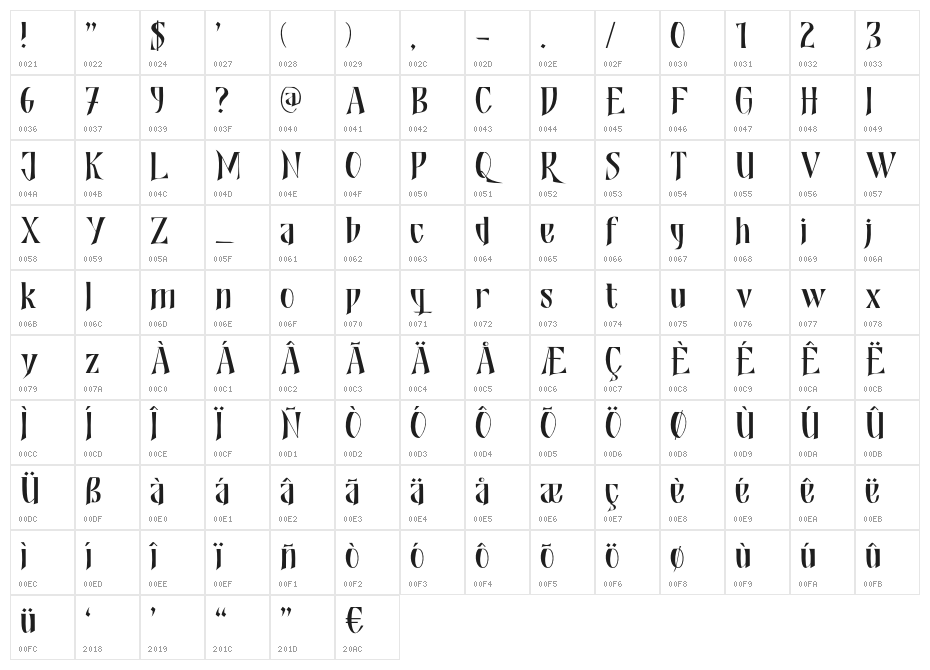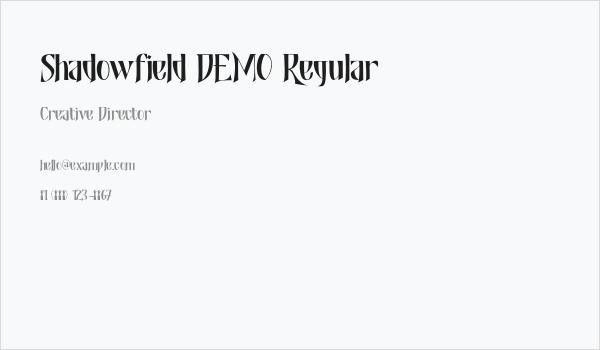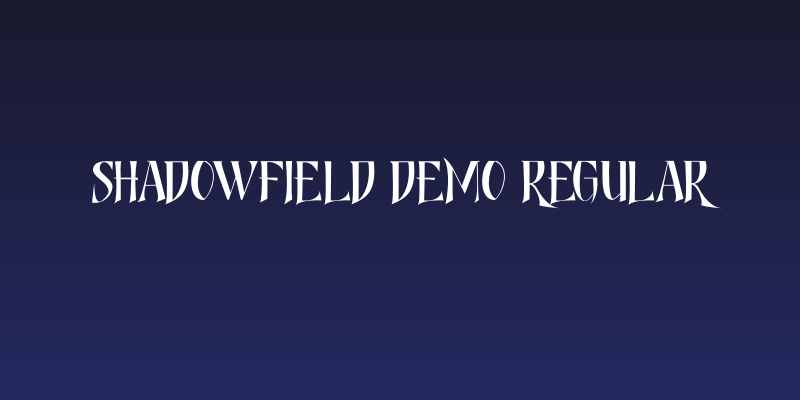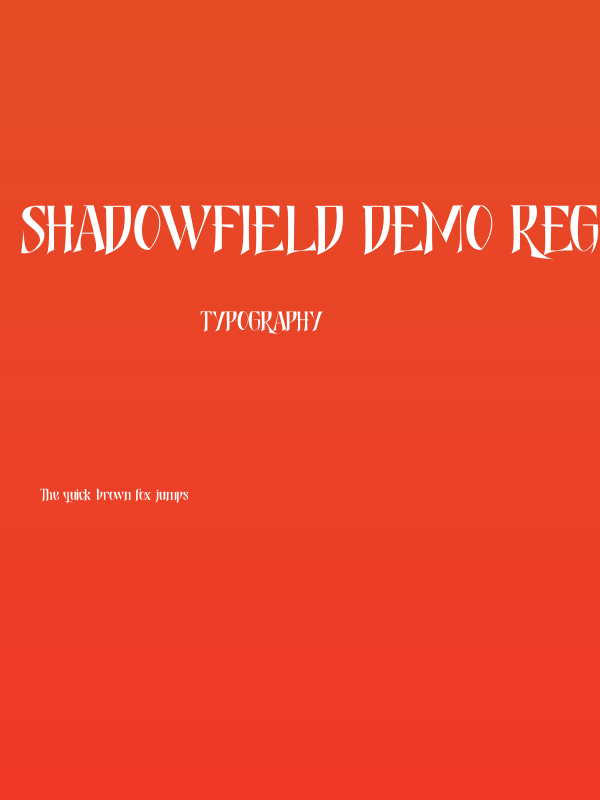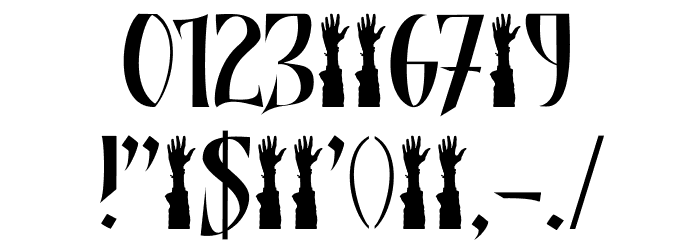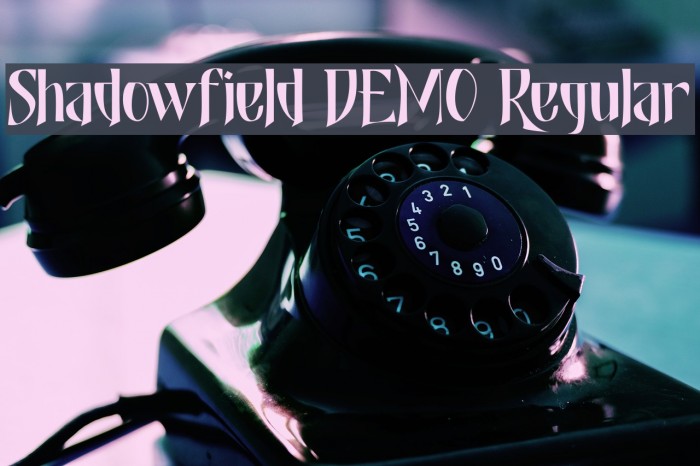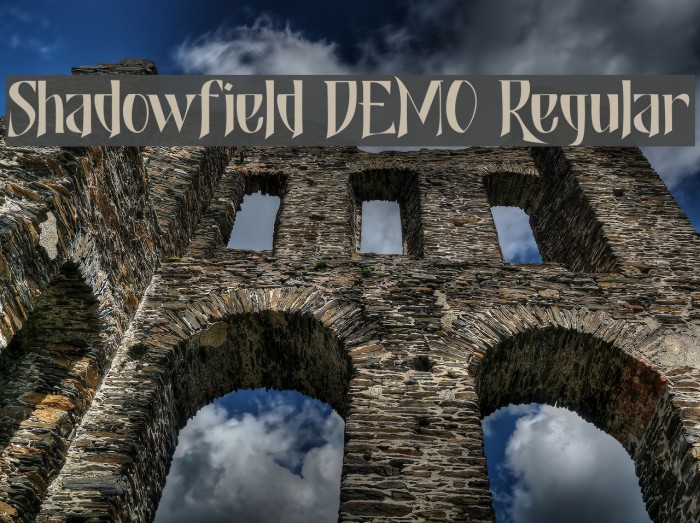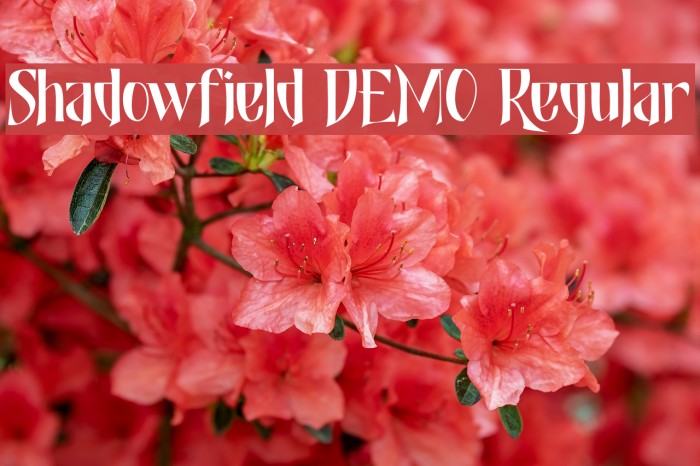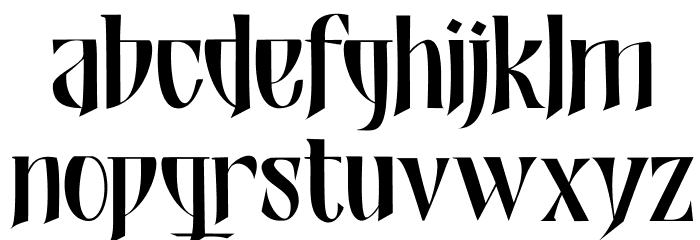
Shadowfield DEMO Regular Font
Shadowfield DEMO Regular Description
This font features a striking and bold design with sharp, angular lines and a dramatic flair. The uppercase letters are tall and narrow, with unique cutouts and pointed serifs that give them a gothic and mysterious appearance. The lowercase letters maintain a similar style, with consistent angularity and sharp edges. The numerals are equally distinctive, incorporating the same bold and edgy design elements. Special characters include a mix of traditional symbols and creative interpretations, adding to the font's unique personality. Overall, this font exudes a sense of drama and intensity, making it ideal for projects that require a bold statement.
| Overall Style | Gothic, Dramatic |
| Proposed Projects | Ideal for horror-themed posters, edgy branding, album covers, and theatrical event promotions. |